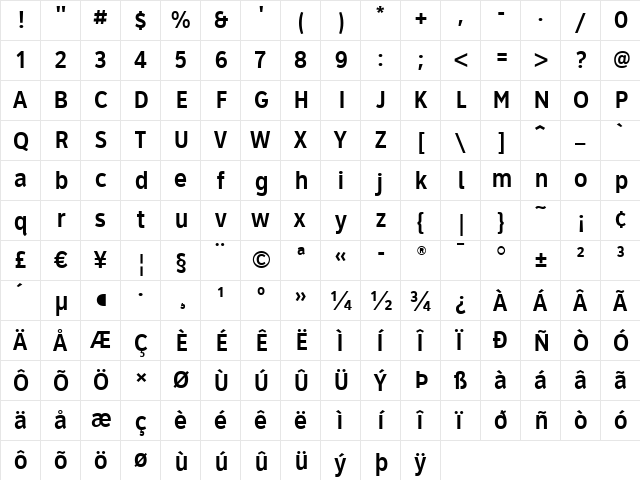
ClearviewHwy-3-B Regular
| Foundry | Terminal Design, Inc. |
| Designer | James Montalbano, Donald Meeker, Chris O'Hara |
Design Context for ClearviewHwy-3-B Typeface
ClearviewHwy-3-B offers clean, dependable letterforms without strong stylistic allegiance, making it a practical choice for designers who need flexibility.